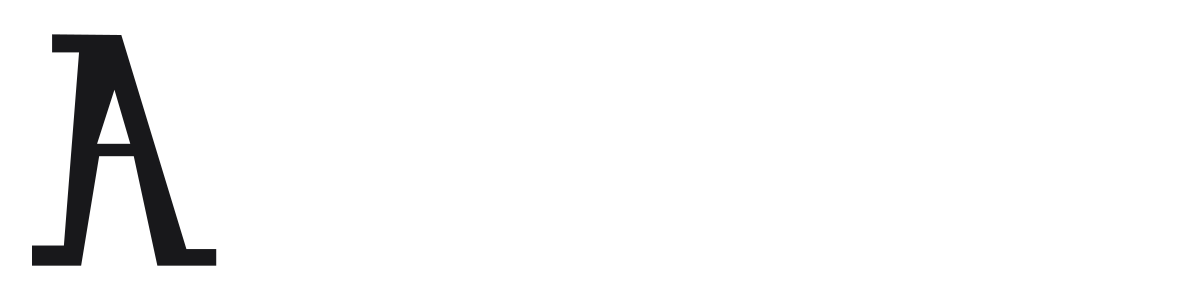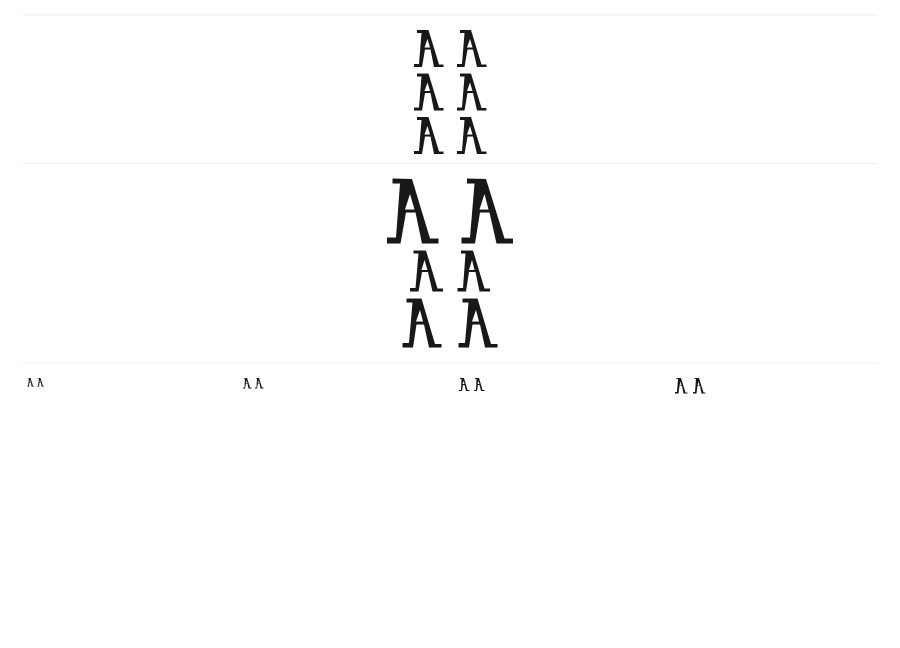
Vhtr
by Victor Torres
Vhtr is a bold transitional serif with sharp stroke contrast and sturdy bracketed serifs. The heavy stems paired with fine hairlines give it a commanding, press-ready authority reminiscent of classical 18th-century typefaces. It carries weight in headlines, mastheads, and editorial contexts where gravity matters.